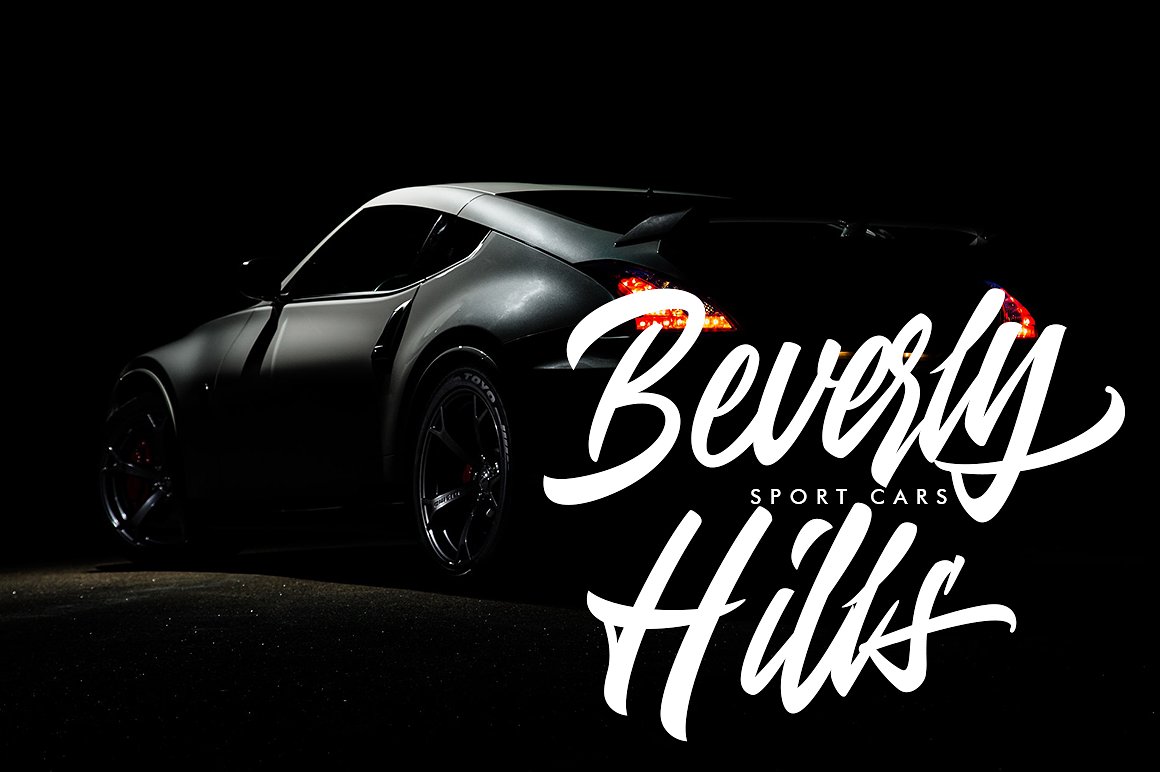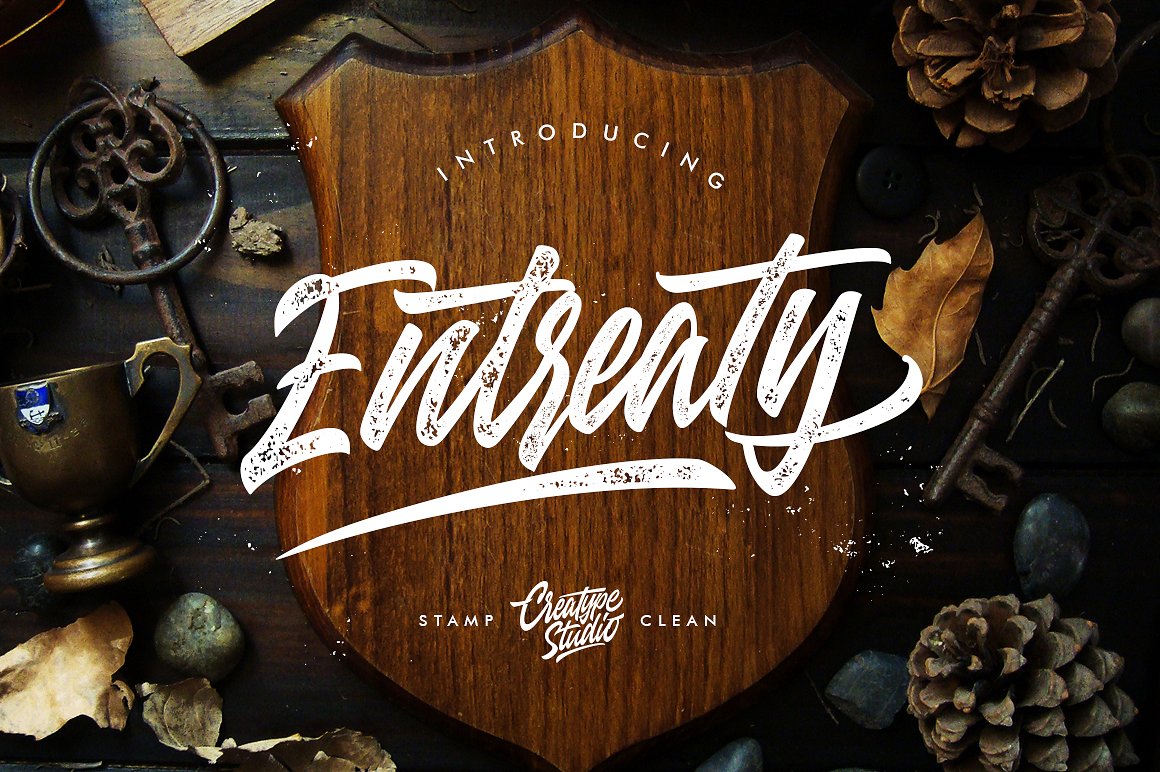
Entreaty Handlettering
Entreaty Handlettering Script Font
Hello! Entreaty is a bold modern handlettering script with strong style and dramatic movement. It’s allowing you to create beautiful hand-made typography in an instant.